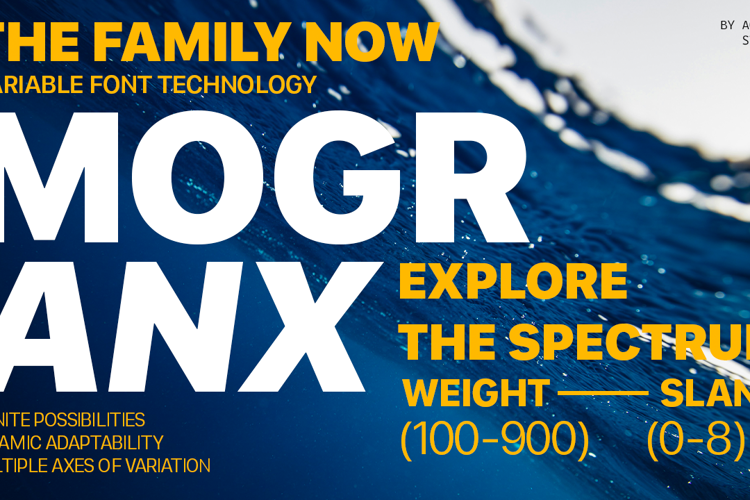
Mogranx Ext Lt Ult Cond Font
Extra Light Ultra Condensed Style
Mogranx: A Dynamic Variable Font Family Mogranx is a high-performance variable font built for "Infinite Possibilities." It seamlessly blends technical precision with a modern aesthetic, making it ideal for everything from digital UI to high-impact branding. Key Features: Variable Control: Seamlessly adjust Weight and Slant for the perfect fit. Massive Library: Includes 155 static styles for full compatibility with all design software. Range: Transitions from ultra-condensed thin styles to commanding black weights. Versatile: Optimized for motion graphics, editorial layouts, and advertising. Technical Details: Styles: 155 Static Styles and Variable version included. Weight Axis: Range from 100 to 900. Slant Axis: Range from 0 to 8. Design: Aqeela Studio.